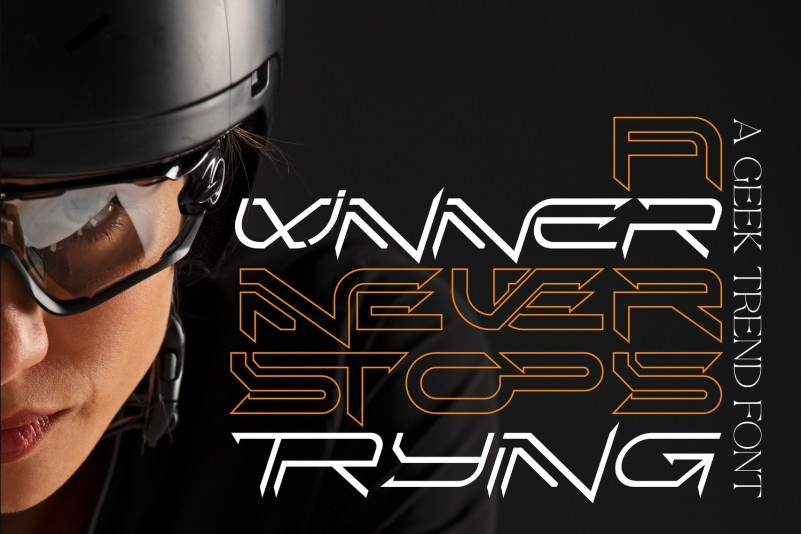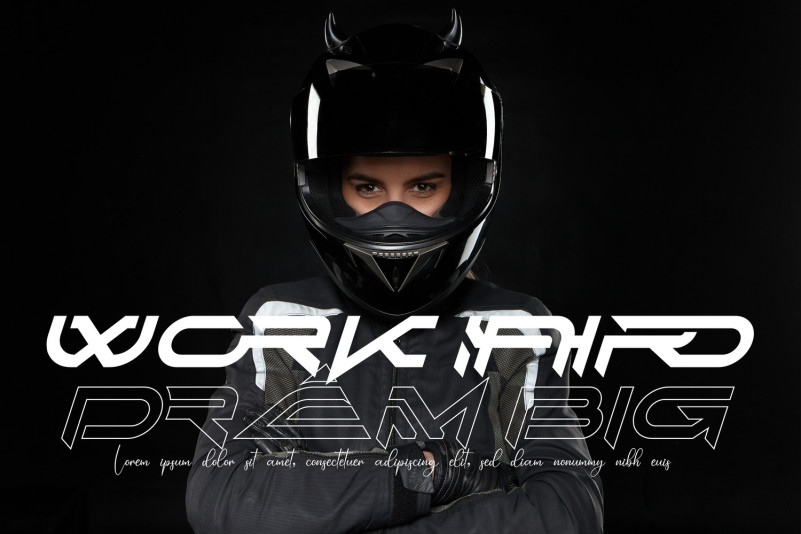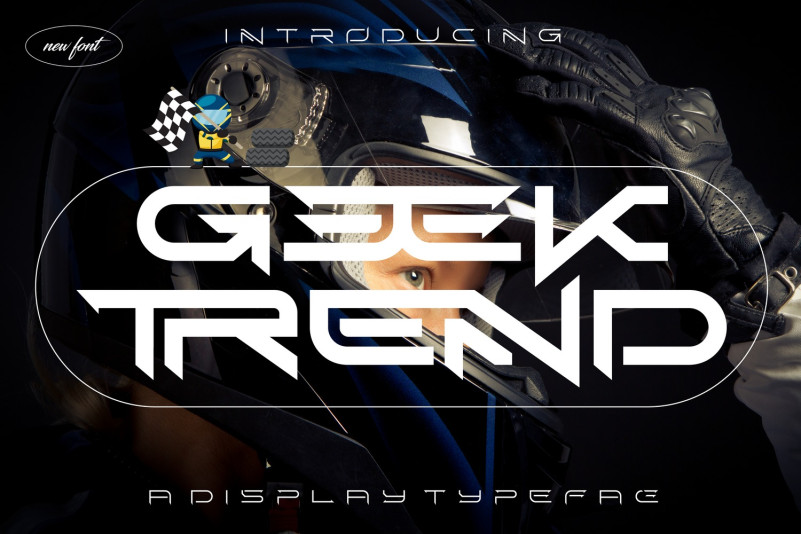
Geek Trend Font
Geek Trend Font – Futuristic Font is a futuristic display font, it’s a bold and edgy typeface with a distinct cyberpunk, futuristic aesthetic. This font embodies the high-tech and innovative spirit of space exploration and military technology. Its sleek lines and sharp angles give a modern, high-tech feel, while its blocky, heavy structure conveys strength and power. It’s the perfect font for creating outstanding posters, flyers, social media posts and much more!
To make it look more unique, here we prepared some ligatures:
AN AR AS AT AY CE CH CL CR CS DR ED EA EC EE EL EP EN EM ER ES ET FE FO FR GE HA HE KE LA LE LI LL LO LY MA ME MI NC ND NE NG NT OO SE SH SI SO SS ST TA TE TH TI TO TR TT UM UN UR VE AC AD AL BE CA CO CT DE DI HI HO IE IC IL IN IO IR IS IT JU NO NS OC OF OM ON OP OR OT OU OW PA PR RD RE RI RO RS RT WI WO